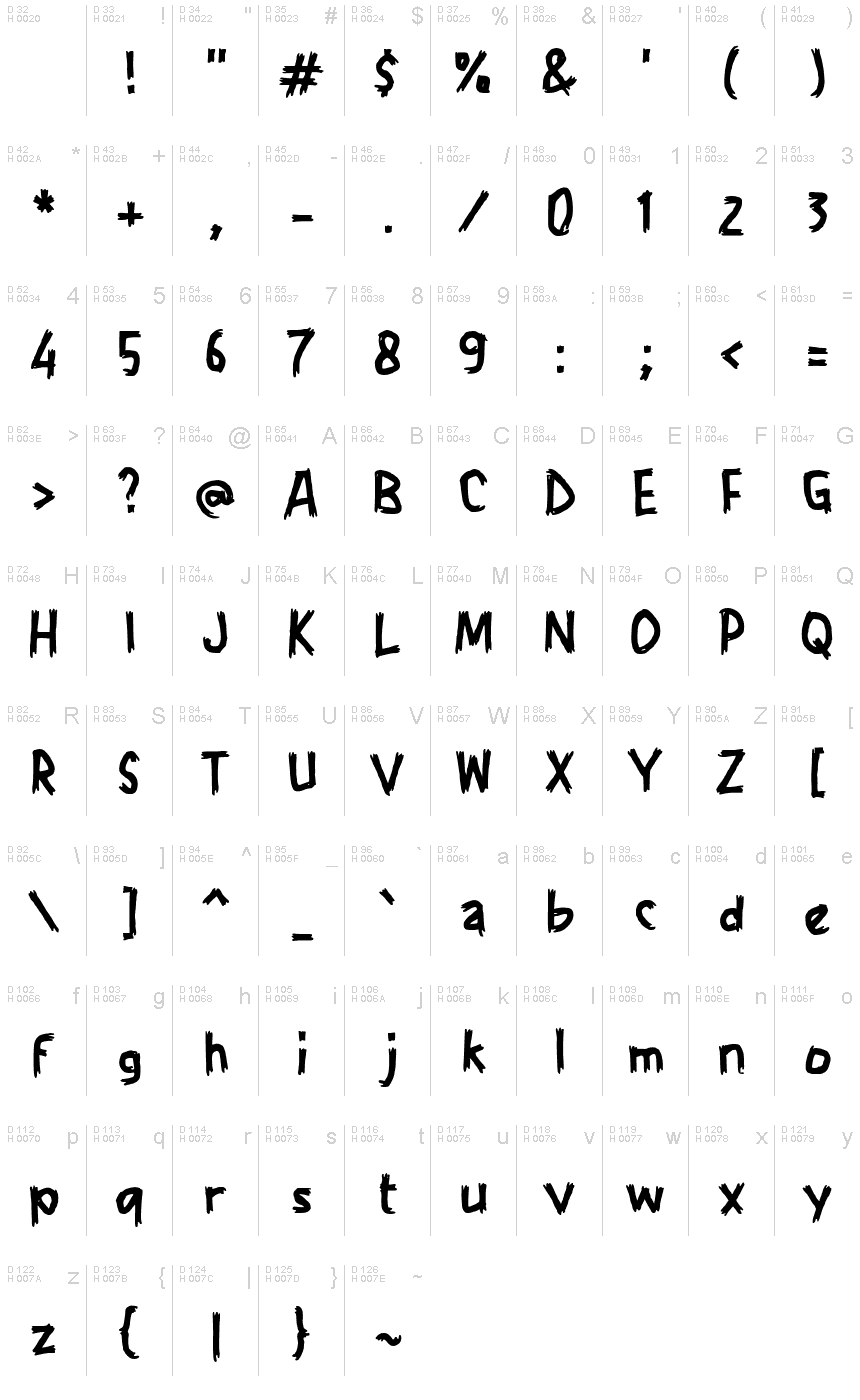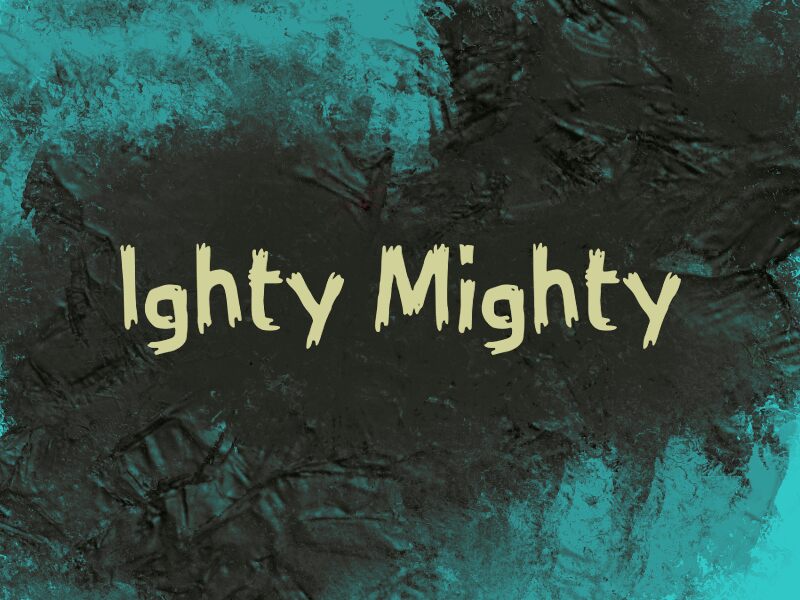
Ighty Mighty
Ighty Mighty, a spine-chilling display font designed by wep, dares to enthral with its haunting brush strokes.
This bone-chilling typeface will send shivers down your readers' spines, making it perfect for Halloween-themed invitations, horror movie posters, or eerie book covers. Its frightful essence adds an extra layer of terror to haunted house brochures and ghost tours. With Ighty Mighty's terrifyingly unique style, you can captivate your audience and immerse them in the macabre world of horror.
Embrace this font to create a hair-raising experience that will leave them trembling for more.